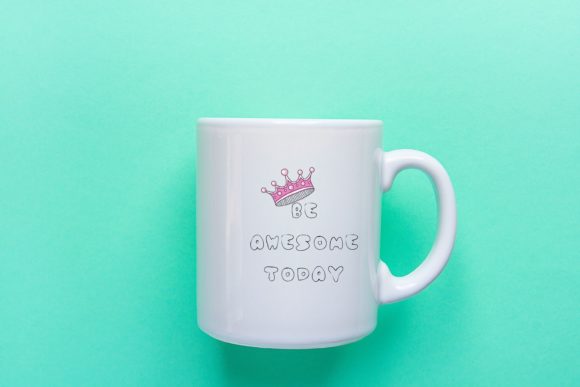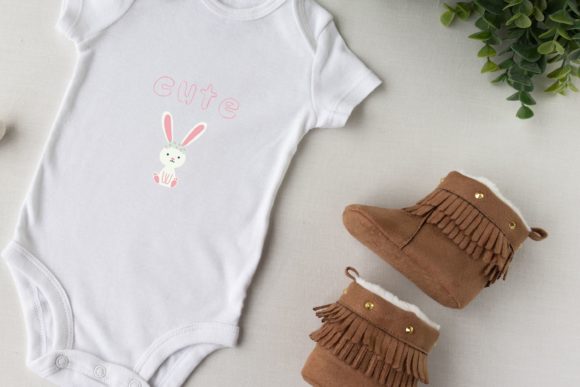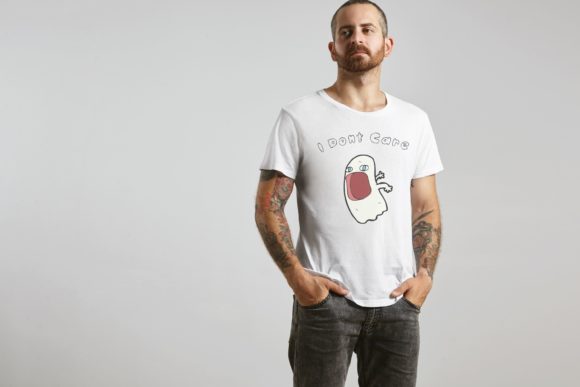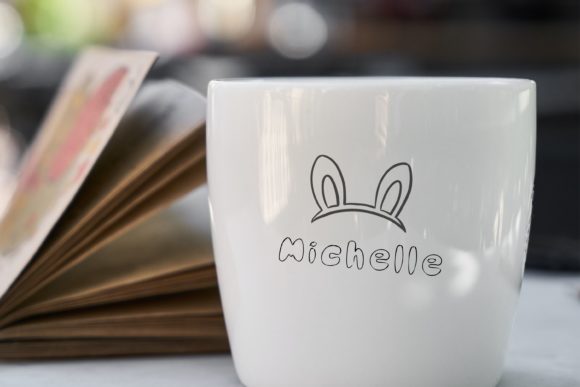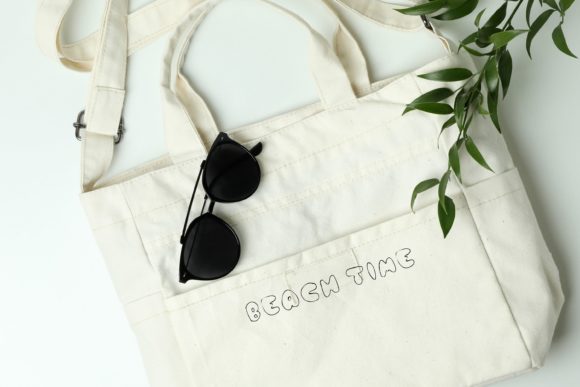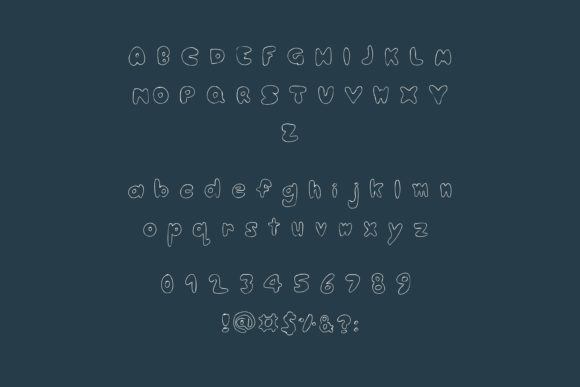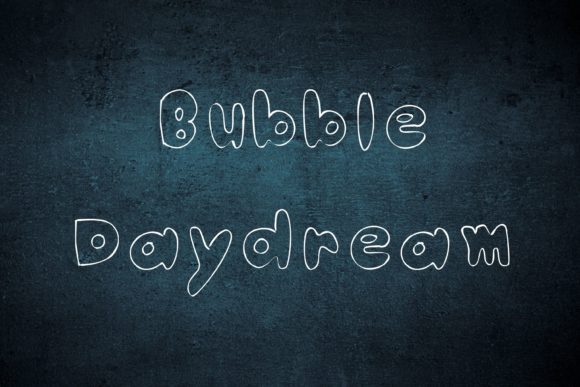
The Magic of Bubble Daydream Font: A Designer’s New Best Friend
I still remember the day I stumbled upon the perfect font for a whimsical craft project I was working on. I had been scrolling through font after font, trying to find the one that would bring my design to life. And then, I saw it – Bubble Daydream. Its playful, outlined letters immediately caught my attention, and I knew I had found my new go-to font. In this article, I’ll share my experience with Bubble Daydream, its features, and how to make the most of it in various design platforms.
An Honest Review of Bubble Daydream Font
Bubble Daydream is a cool and fun outlined display font that has quickly become a favorite among designers, crafters, and creative hobbyists. Here’s what I love about it:
- ✨ Playful and whimsical design: Perfect for crafts, digital design, presentations, or making greeting cards.
- ✅ Highly versatile: Works well for both personal and professional projects.
- 💡 Inspires creativity: Its unique design sparks imagination and encourages experimentation.
However, I did notice a few minor quirks:
- 🤔 Limited use in body text: Due to its outlined design, it may not be the best choice for lengthy paragraphs.
- ⚠️ Some glyphs may require adjustment: Depending on the platform or software used, some glyphs might need manual adjustment for optimal results.
- Experiment with OpenType features, such as stylistic alternates, to add more personality to your design.
The Backstory of Bubble Daydream Font
Bubble Daydream was designed with the intention of creating a font that would inspire creativity and playfulness. Its designer aimed to craft a font that would be both fun and versatile, suitable for a wide range of projects. Although the designer’s story might be fictional, the font’s impact on the design community is real.
| What is Bubble Daydream font best used for? | Bubble Daydream is perfect for crafts, digital design, presentations, making greeting cards, and any project that requires a playful touch. |
| Is Bubble Daydream suitable for body text? | While it’s possible to use Bubble Daydream for body text, it’s recommended to use it sparingly or in short paragraphs due to its outlined design. |